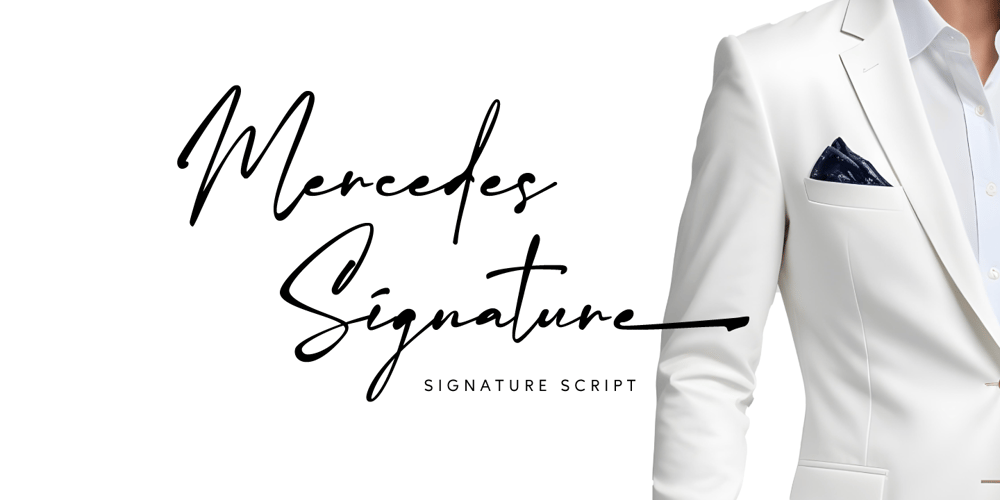
Mercedes Signature
Mercedes Signature font
Mercedes Signature Font Family was designed by Akhmad Reza Fauzi and published by Grezline Studio. Mercedes Signature contains 1 styles and family package options. Mercedes Signature is an organic signature script font. This font is the best choice for fashion-related design. Mercedes Signature is perfect for branding, invitations, logos, or any creative projects that requires a touch of elegance.Feature :- Alternate and Ligature- Multilingual Language- Works on PC & Mac- Simple installations- Accessible in the Adobe Illustrator, Adobe Photoshop, Adobe InDesign, even works on Microsoft Word.Thank you!Grezline Studio – Akhmad Reza Fauzi